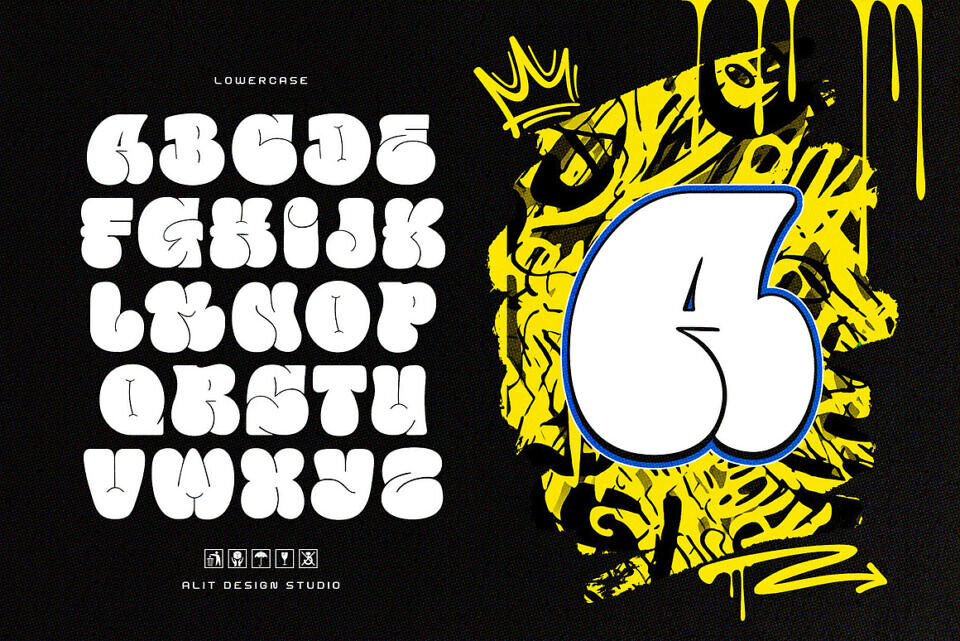
Bubble Core is a bold fusion of spiked metal aesthetics and bubbly graffiti flair. Featuring 903 meticulously crafted characters, it includes letters, numbers, symbols, and punctuation—ideal for diverse creative needs.
Its hybrid style combines sharp metallic edges with soft, rounded curves, delivering a unique visual balance perfect for logos, posters, album art, and digital projects. This mix font exudes urban energy and attitude, making designs stand out with character and edge. Fully compatible with major design software, it ensures smooth, hassle-free use.